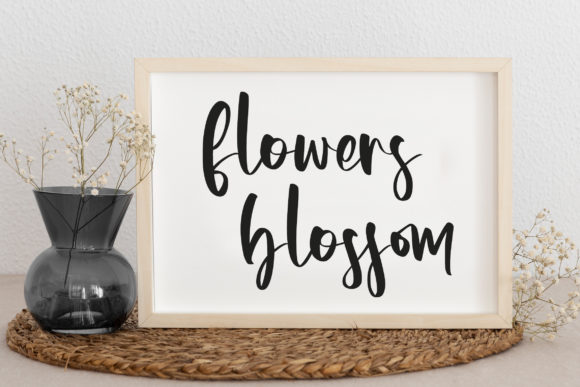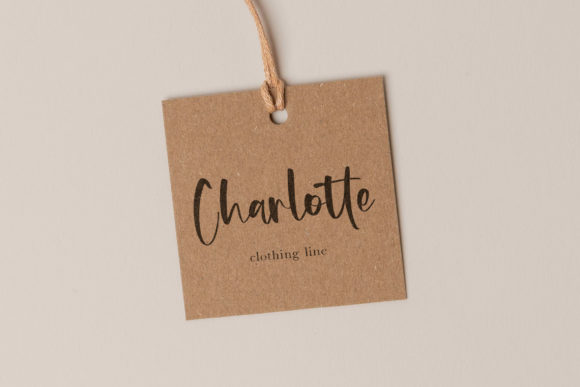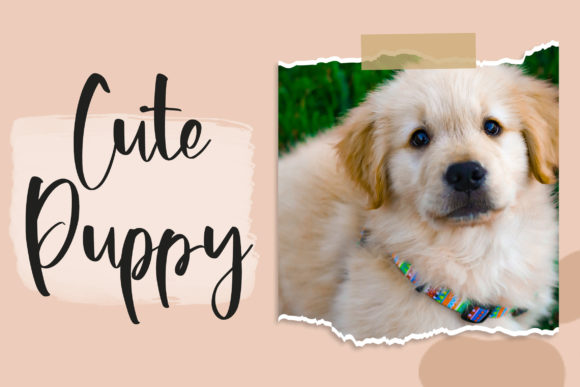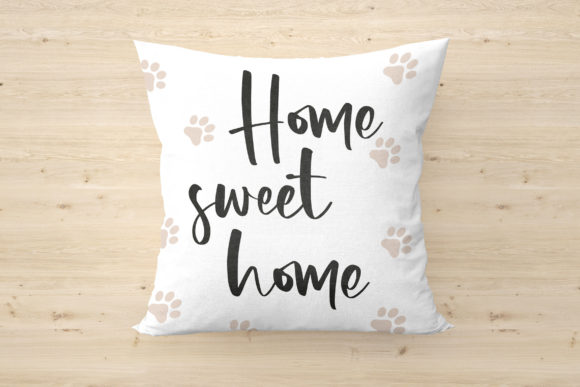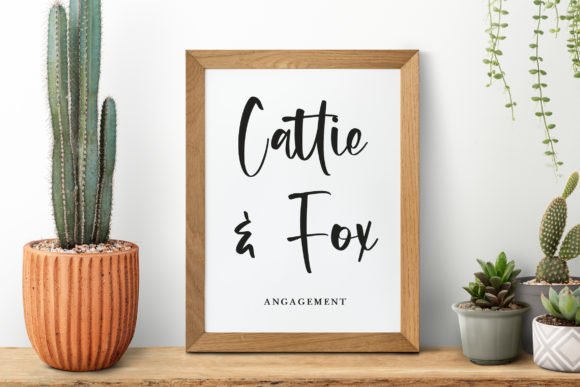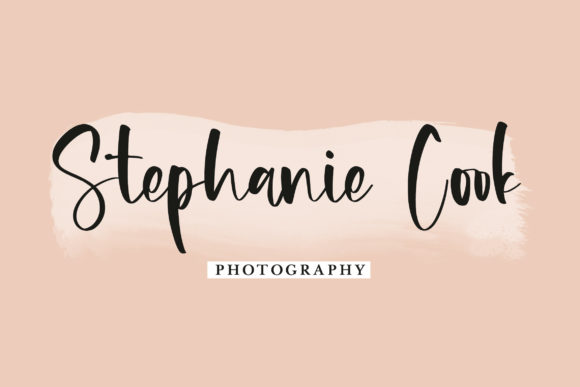
Introduction to Puppylike Font
Do you remember the feeling of excitement when you first start a new creative project? The blank canvas, the endless possibilities, and the anticipation of bringing your vision to life? For designers, this moment is what drives us to create something truly special. And what’s even more exciting is finding the perfect design resource to make our project stand out.
That’s where the Puppylike Font comes in – a stunning script font that exudes luxury and style. With its relaxed and elegant feel, this font is sure to add a touch of sophistication to any design project. Whether you’re working on a high-end brochure, a luxurious logo, or a creative blog post, the Puppylike Font is the perfect addition to your design toolkit.
Puppylike Font Key Features
- High-quality, vector-based design, ideal for use in creative projects and as a design resource.
- Unique, playful design that captures the essence of a puppy’s personality, making it a great addition to any design project.
Honest Review: Puppylike Font
I recently stumbled upon the Puppylike Font while searching for a high-quality, free download for a creative project. I was pleasantly surprised by the font’s unique design and versatility.
- ✨ Unique design that stands out from the crowd
- ✨ High-quality vectors that can be scaled without losing detail
- ✨ Transparent background, making it easy to customize and combine with other elements
- ⚠️ Limited character set, which may be a concern for designers working on extensive projects
- ⚠️ Some users may find the font’s style too playful or whimsical for certain creative projects
Overall, I’m impressed with the Puppylike Font as a design resource. While it may not be perfect for every project, its unique design and high-quality vectors make it a great addition to any designer’s toolkit.
Puppylike Font
The Puppylike Font is a high-quality design resource perfect for adding a playful touch to your creative project. This free download features a transparent background, allowing you to easily combine it with other design elements.
Tips for Getting the Most Out of Puppylike Font
To get the most out of the Puppylike Font, experiment with different font sizes, colors, and styles to create a unique look. You can also use the font in combination with other design elements to add depth and interest to your design.
Common Use Cases for Puppylike Font
The Puppylike Font is perfect for use in children’s book illustrations, pet-related designs, and playful branding. It’s also great for use in social media graphics, posters, and flyers.
Alternatives to Puppylike Font
Comic Sans MS is a classic, playful font that is perfect for creative projects requiring a casual, approachable tone. When to use: Children’s books, cartoons, and other lighthearted design resources.
Compared to Puppylike Font, Comic Sans MS has a more traditional, sans-serif design, whereas Puppylike Font has a more modern, cursive feel. However, both fonts share a similar playful and friendly vibe.